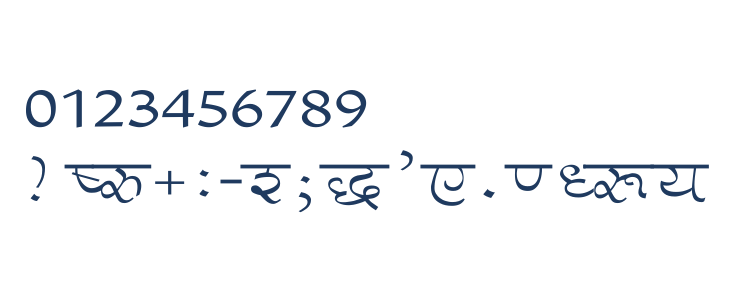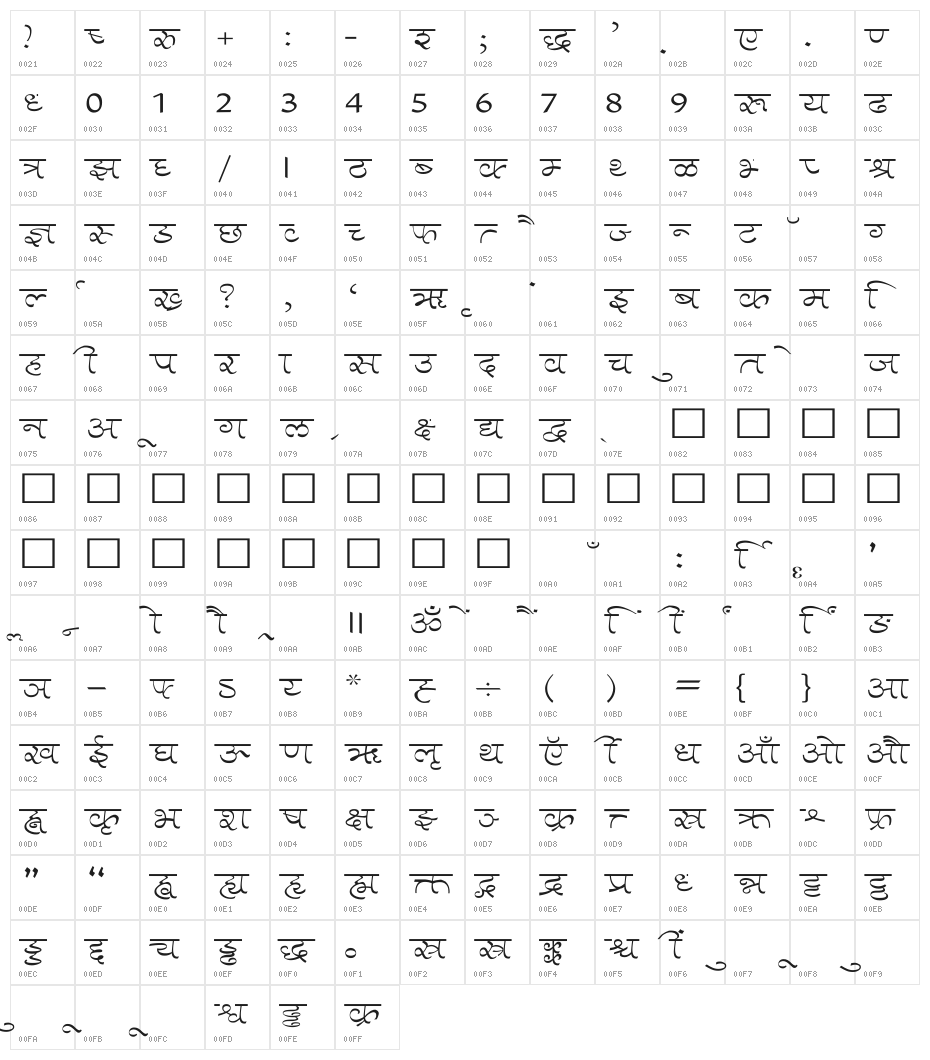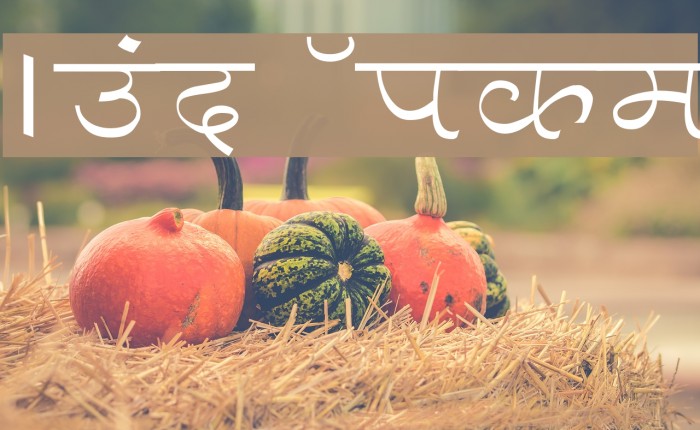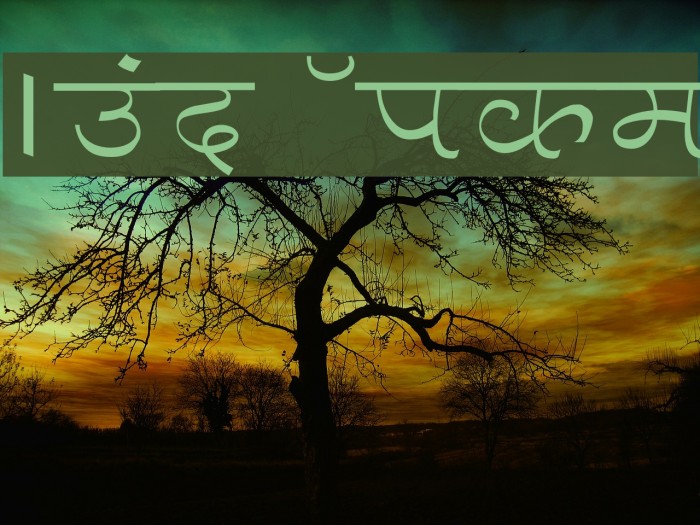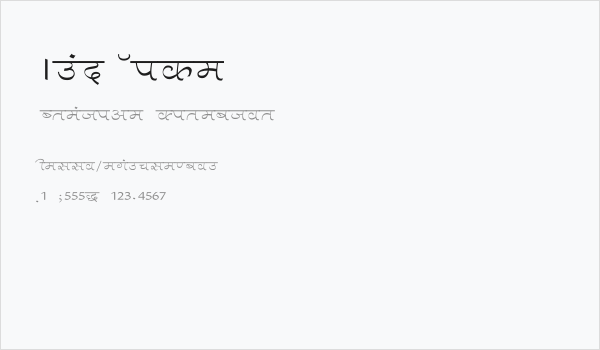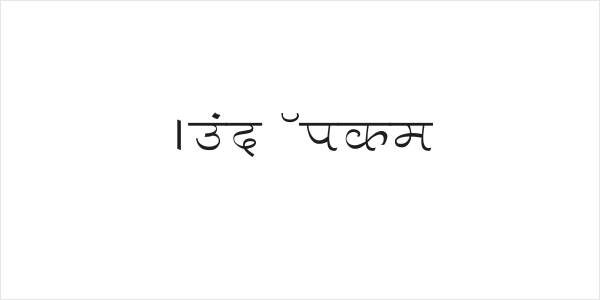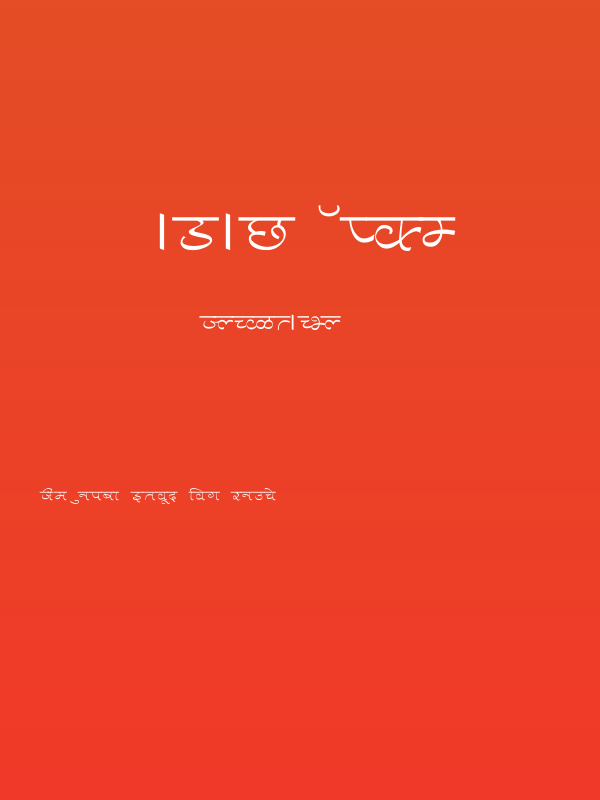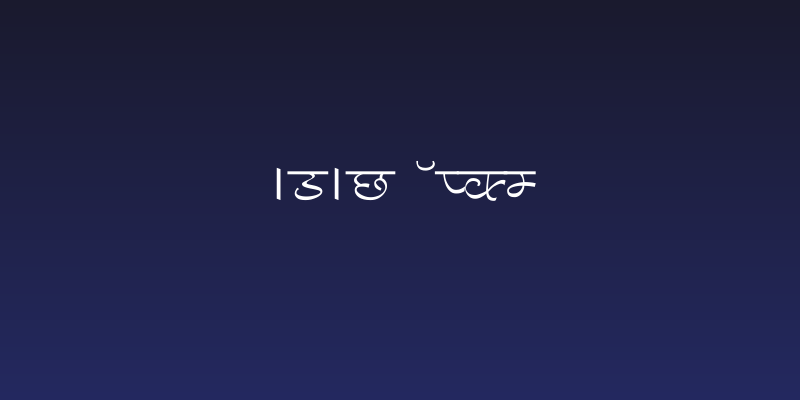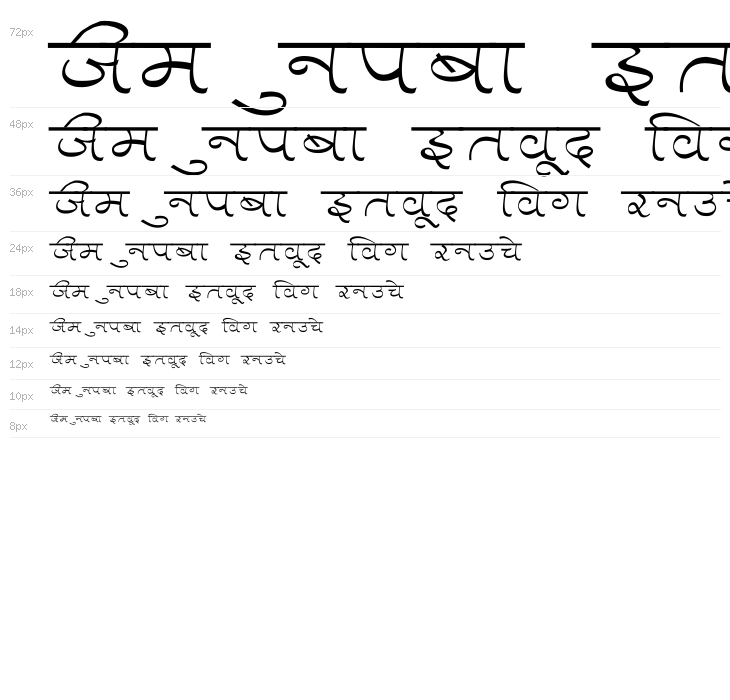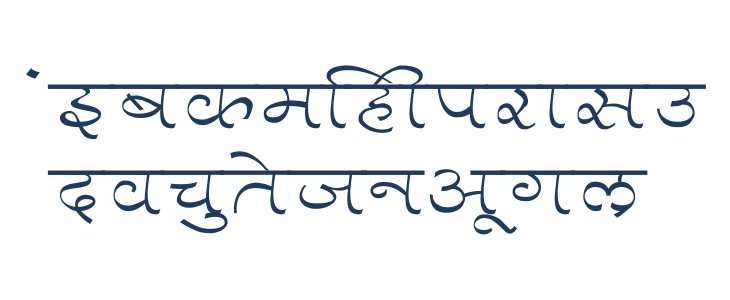
Aman Wide Font
Aman Wide Description
This is a Devanagari script font characterized by its elegant and flowing design. The characters exhibit a harmonious balance between traditional calligraphic elements and modern aesthetics. The strokes are smooth and consistent, with a moderate contrast that enhances readability. The numerals are clear and distinct, maintaining the overall style of the script. Special characters are thoughtfully integrated, complementing the overall design. This font is suitable for various applications, offering both functionality and visual appeal.
| Use Case | Headlines, Body text, Cultural publications |
| Proposed Projects | Ideal for cultural publications, educational materials, and artistic projects that require a traditional yet modern touch. |